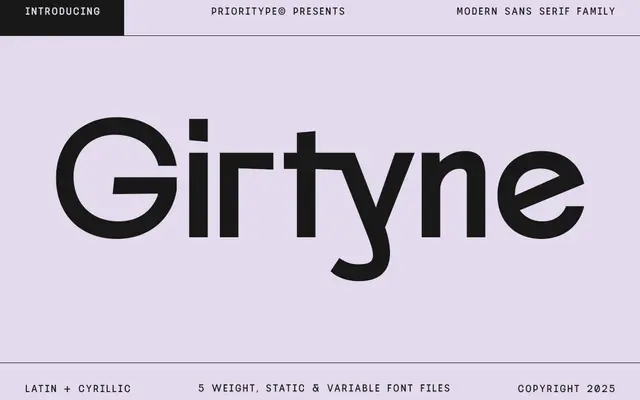
Girtyne – Modern Sans Family
Prioritype · 2025
A five-weight modern sans with variable font support and Cyrillic coverage, aimed at branding, editorial and UI work.
Girtyne sits between geometric precision and humanist warmth, offering five weights from Extra Light to Semi Bold alongside a fully variable font file. Cyrillic support extends its usefulness beyond standard Latin-only packages. The family targets branding, packaging, editorial layouts and interface design where a clean, confident sans is needed without strong stylistic eccentricity.
The foundry describes it as a modern classic sans serif balancing clean geometry with humanist touches, placing it at the intersection of geometric and humanist sans traditions.